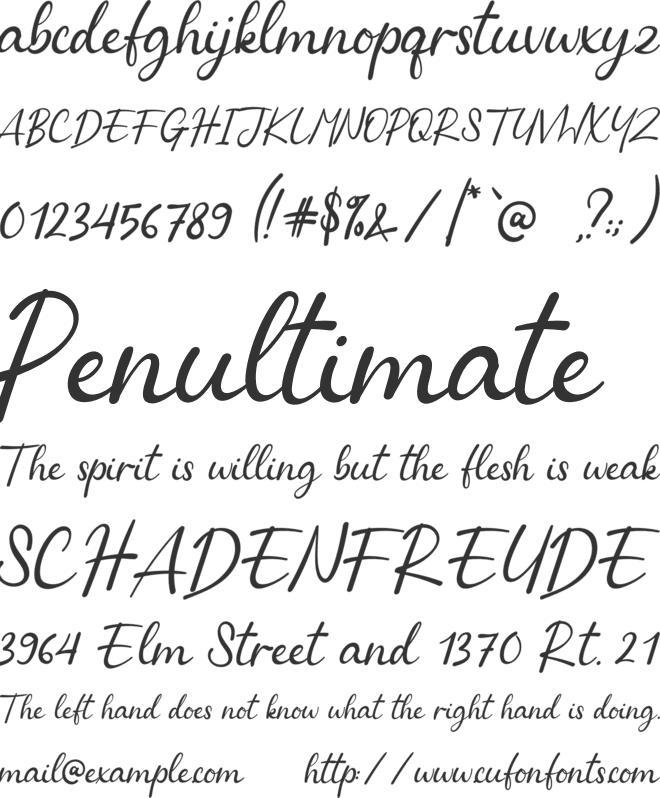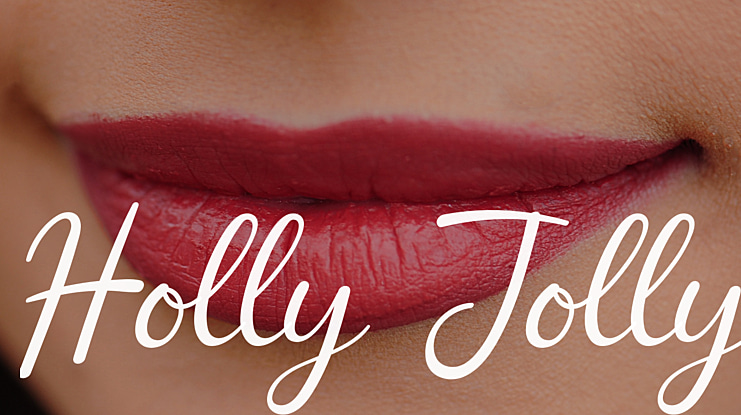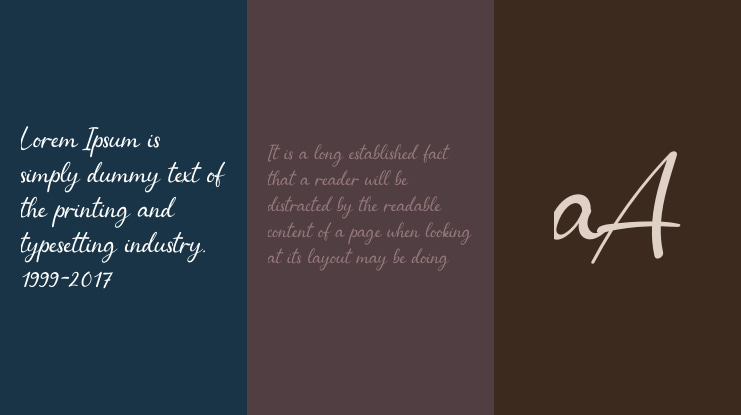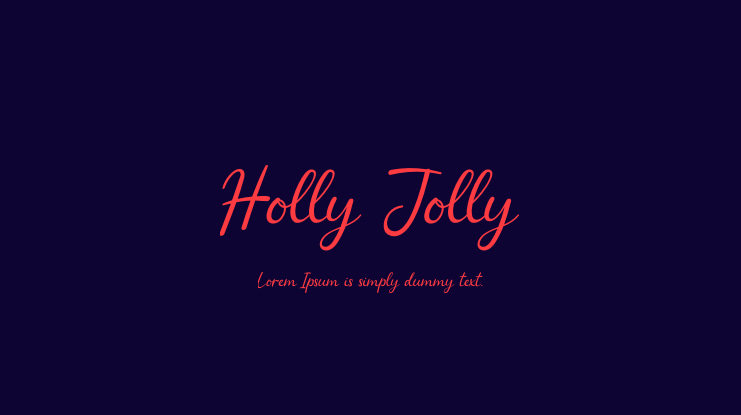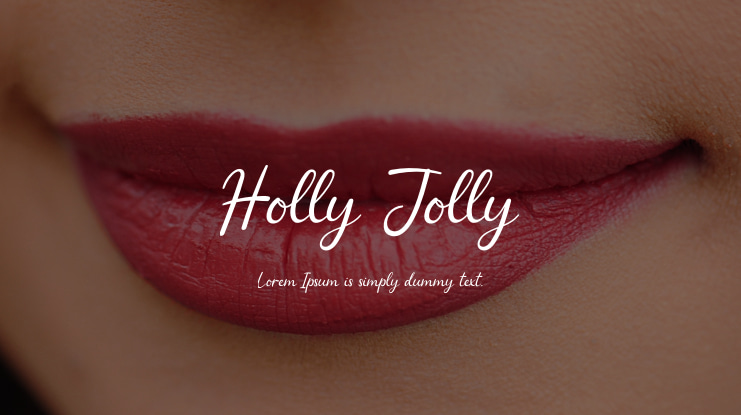
Holly Jolly Font
Holly Jolly is a lovely and delicate script font that exudes elegance and class. This font was particularly crafted for those who need a beautiful and refreshing look to their designs.
Holly Jolly font preview